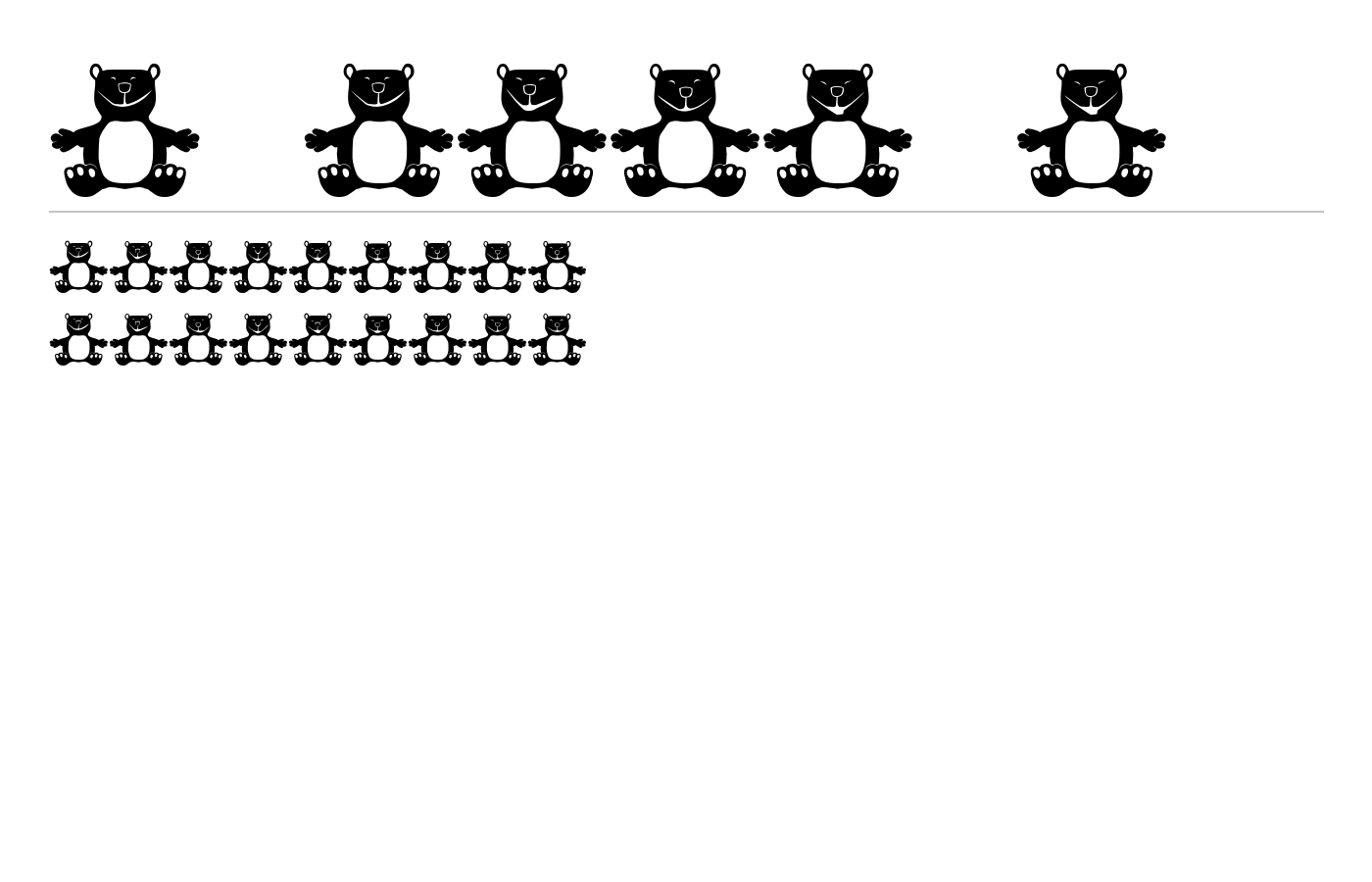
Amabhere Font is a whimsical and playful decorative typeface shaped entirely from cheerful bear illustrations, making it perfect for children's designs or fun, casual projects. Its bold and friendly bear forms create a unique and approachable look that adds personality and charm, ideal for logos, posters, or packaging aimed at a young or family-oriented audience.
Amabhere Font
About Amabhere Font
| Font family | Amabhere Font |